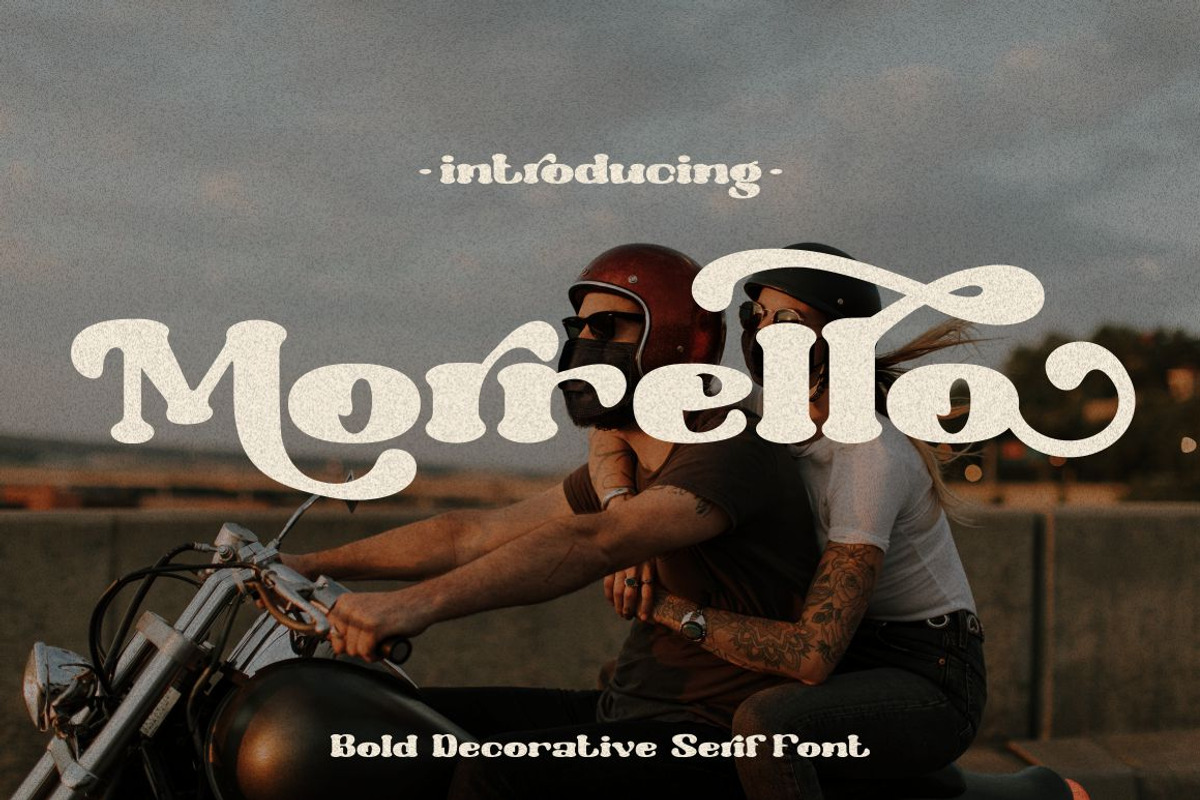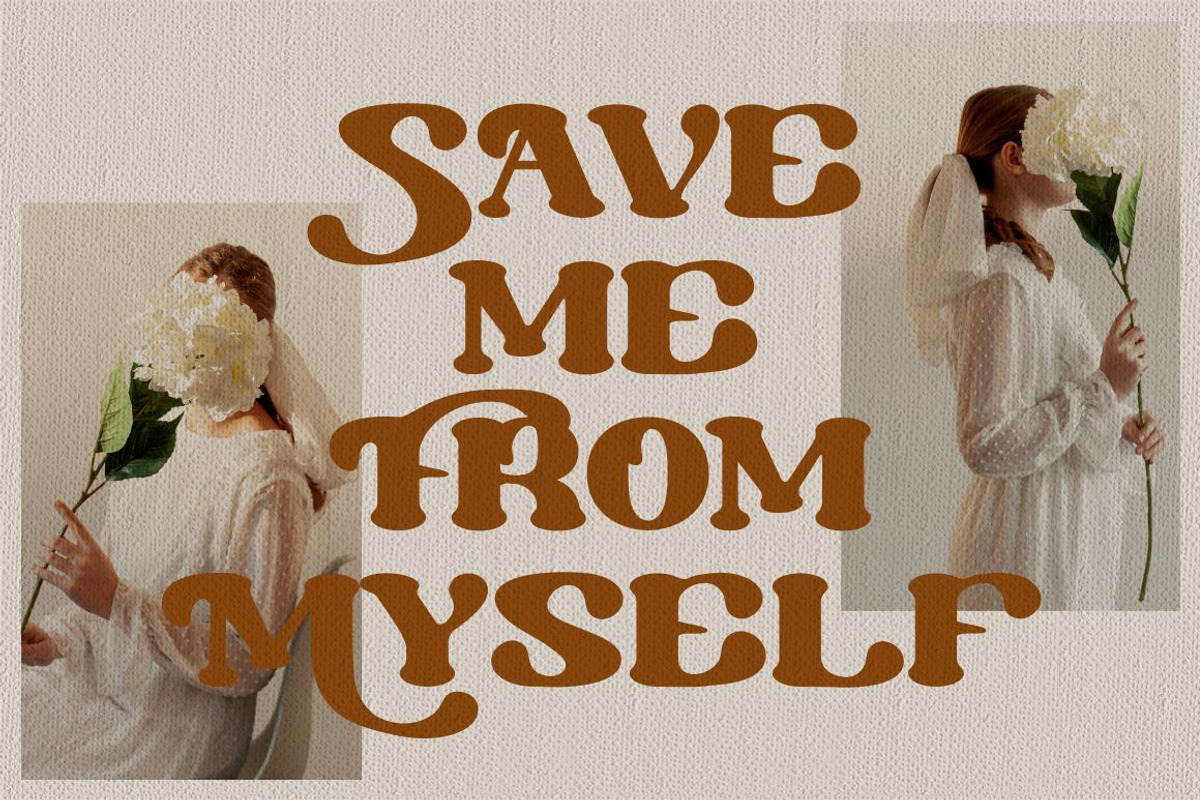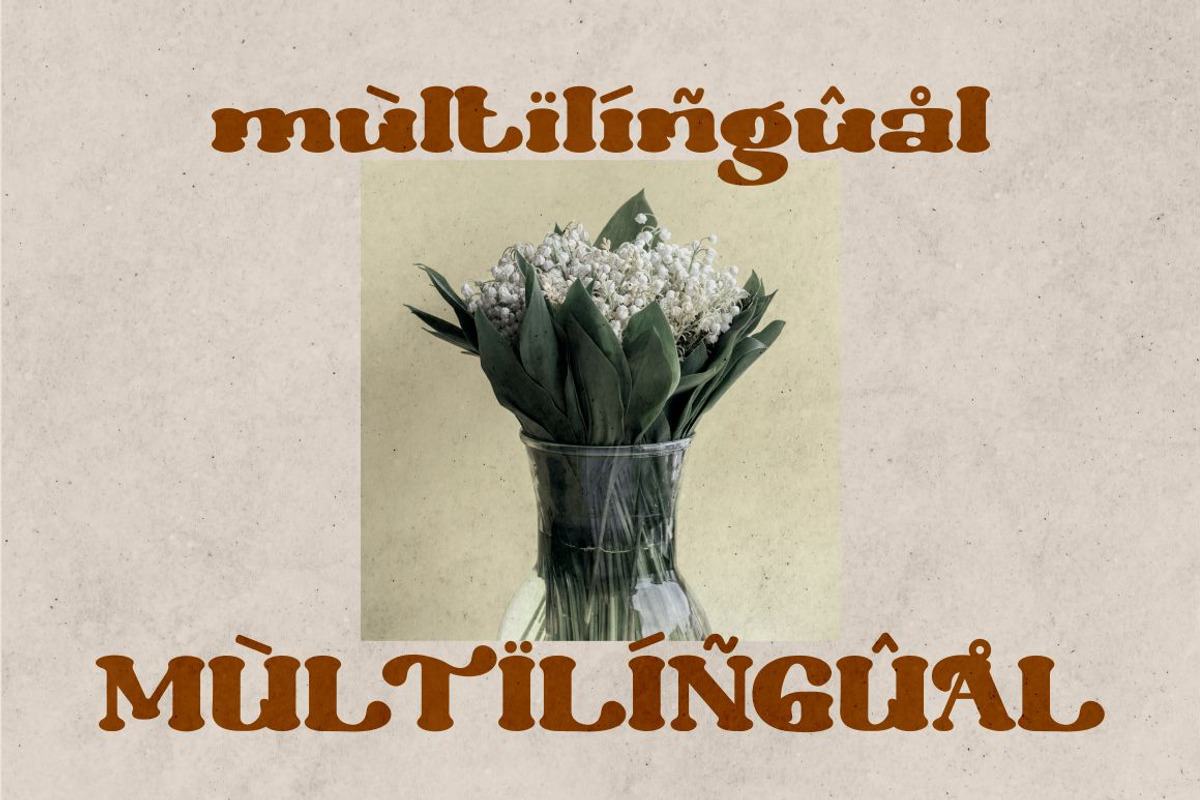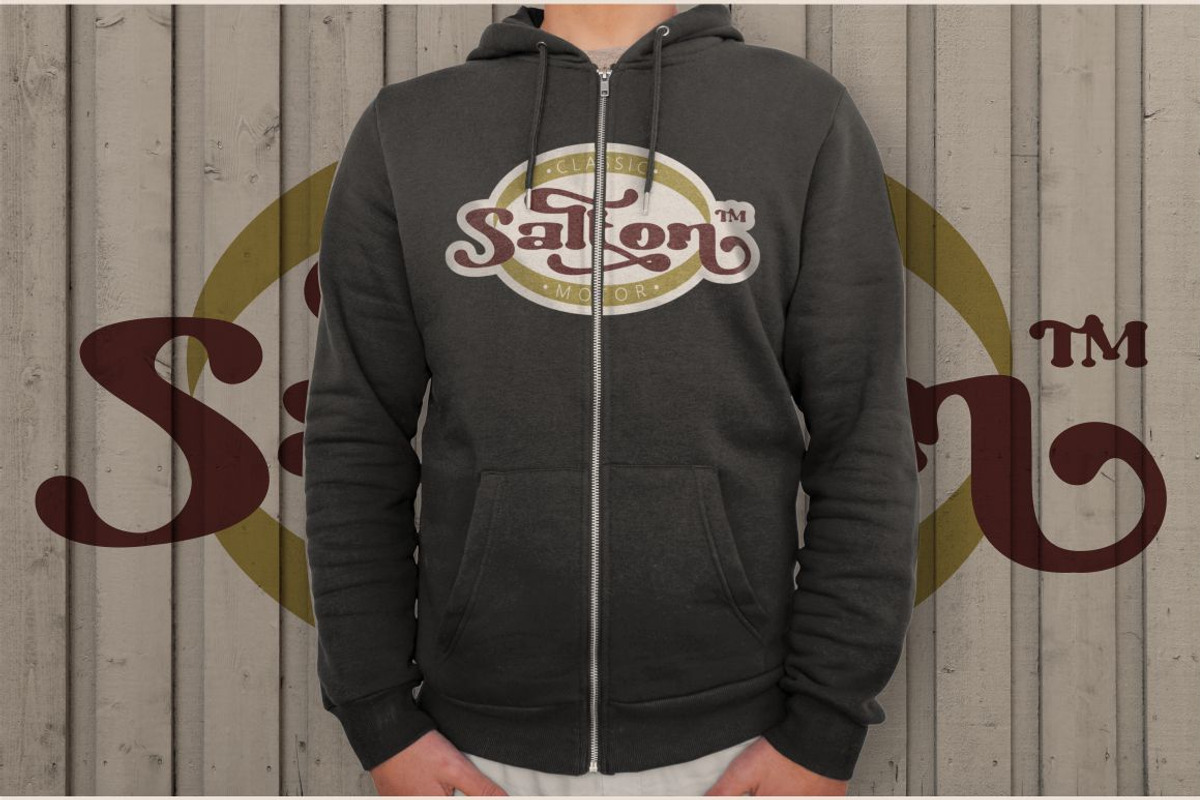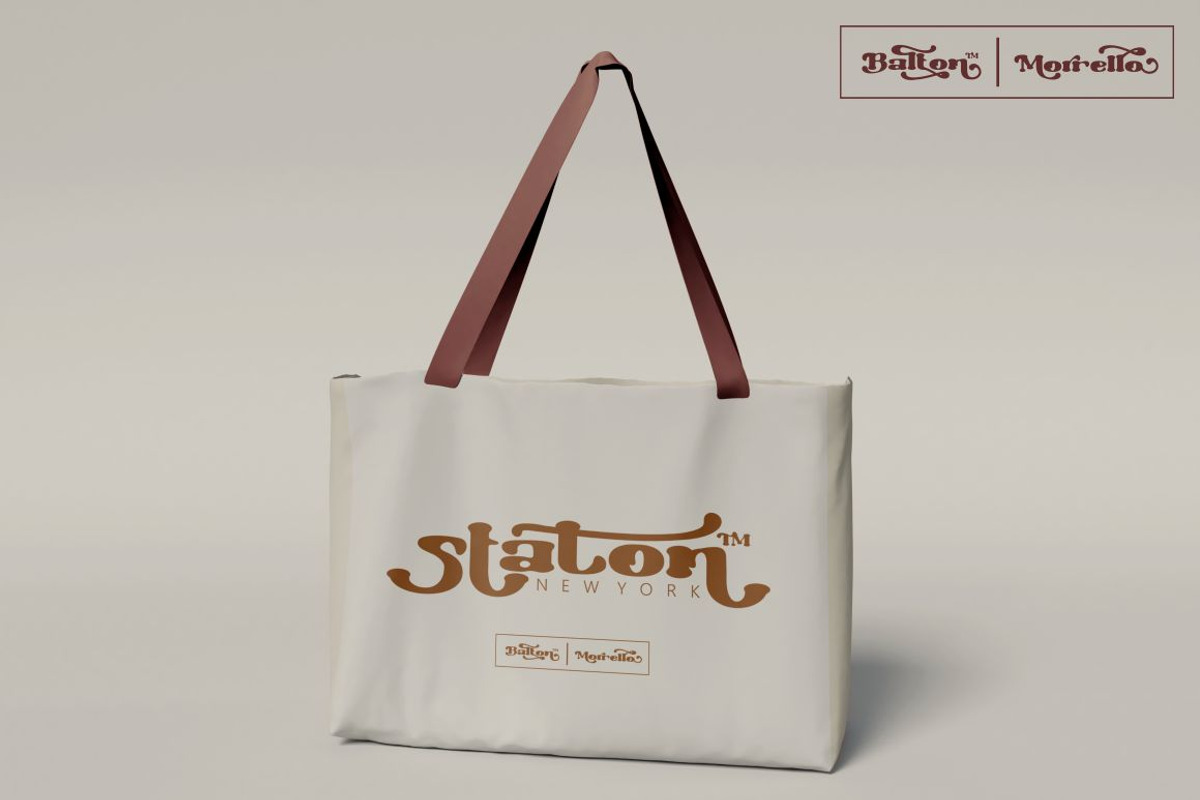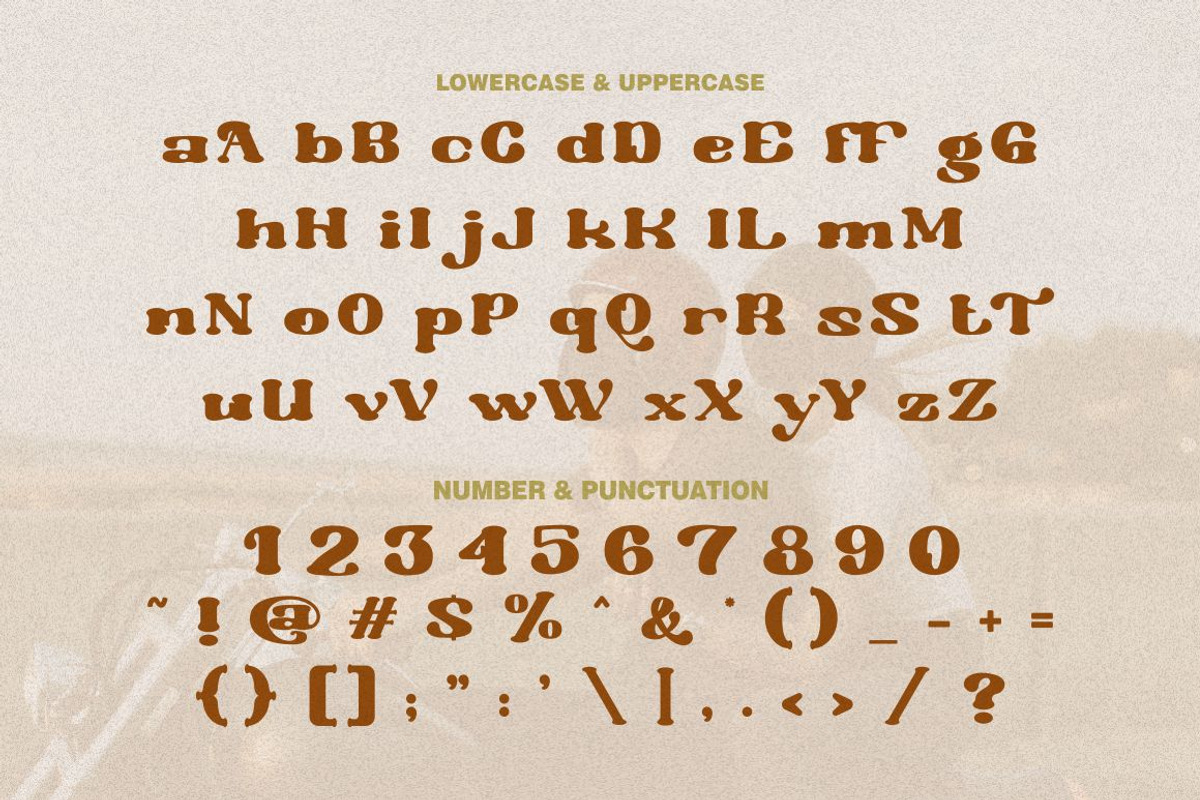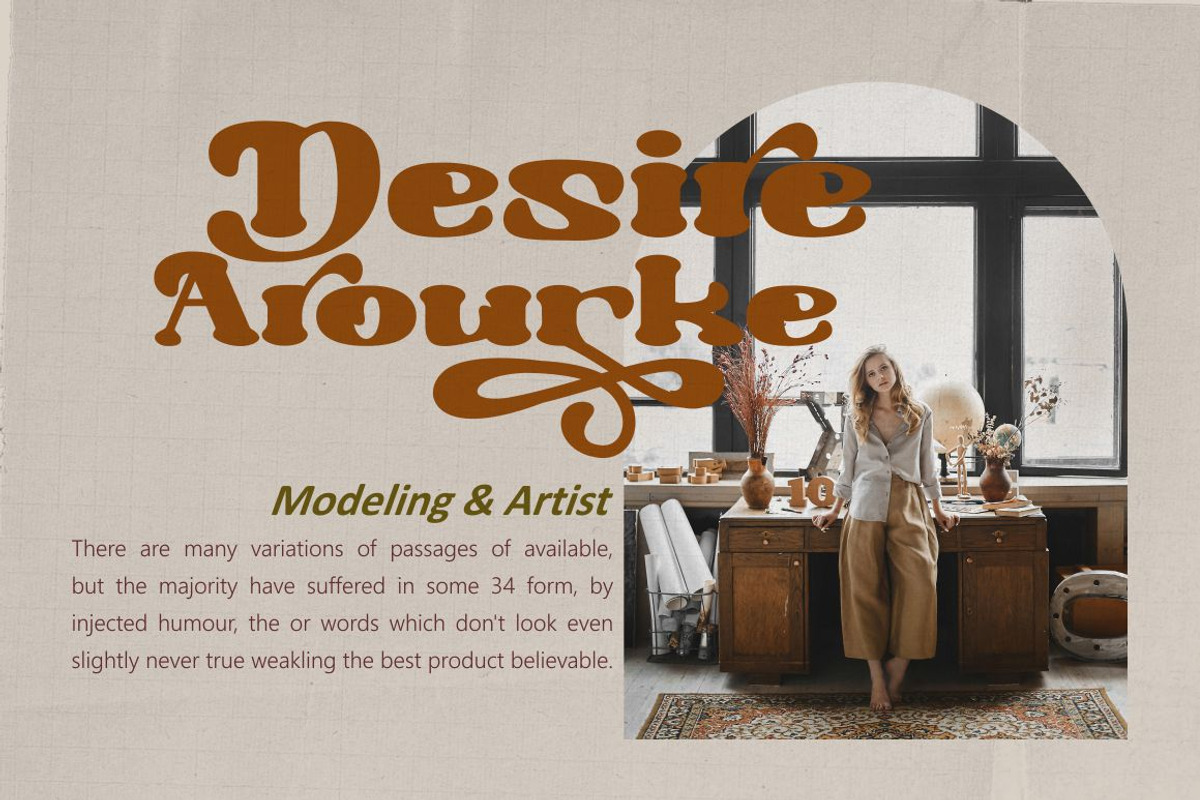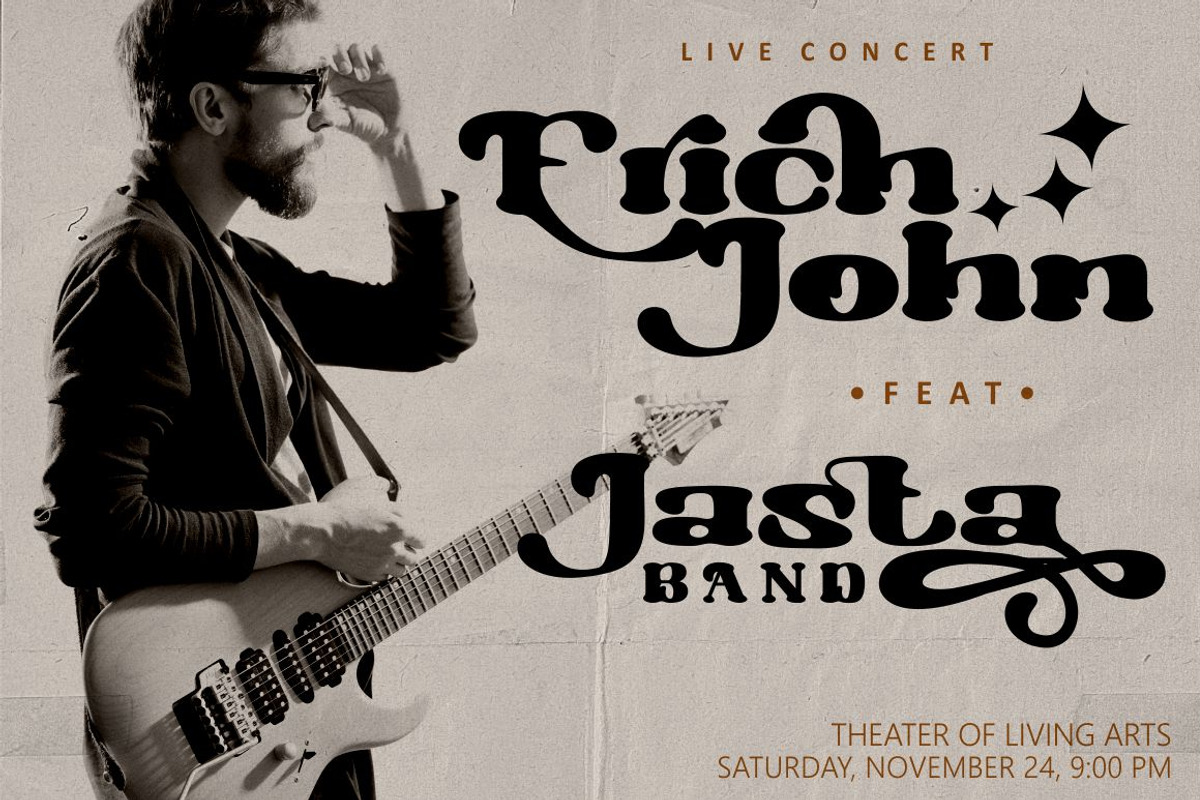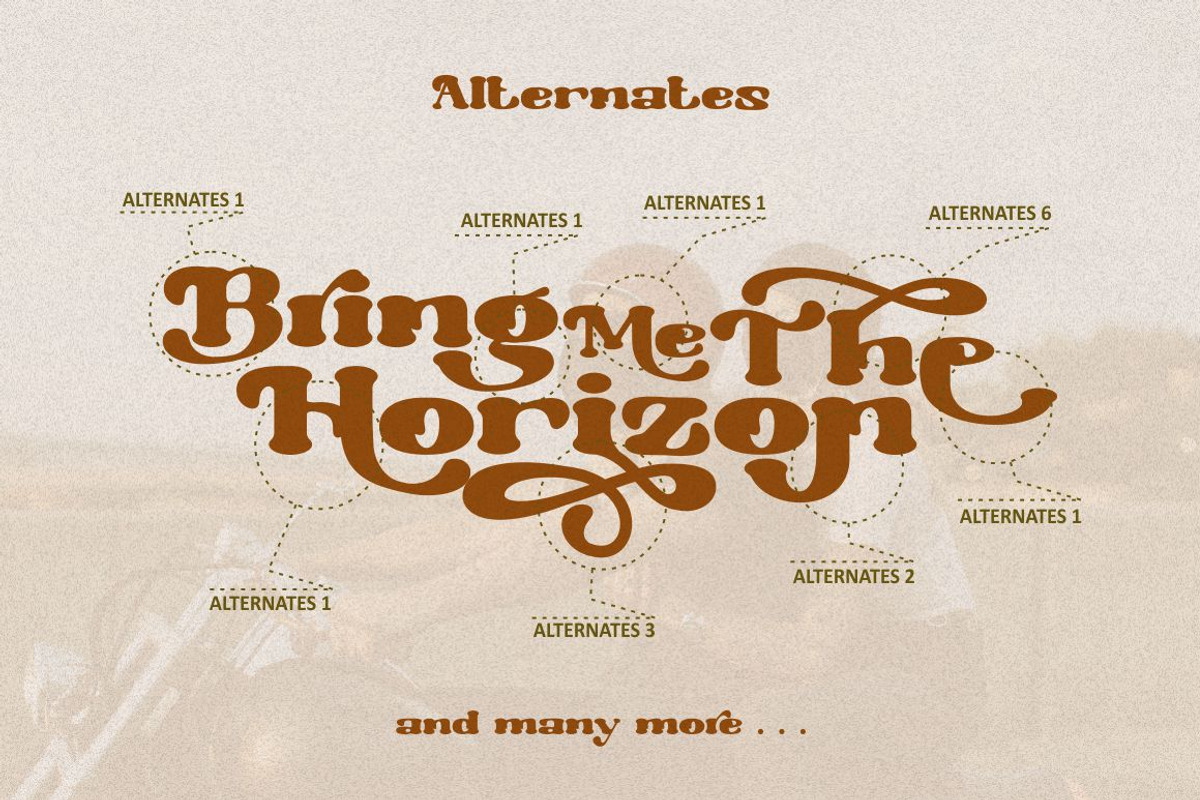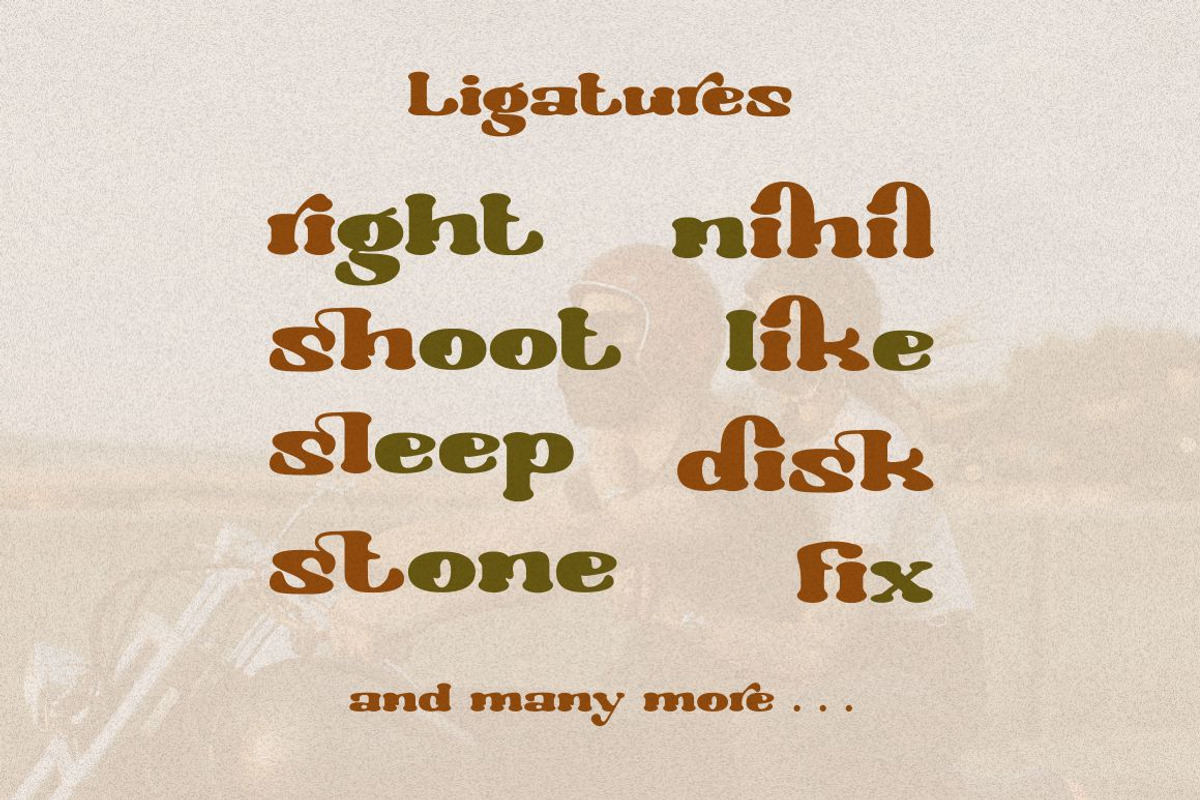
Morrello - Retro Decorative Serif
Morrello - Bold Retro Decorative Serif Font
Morrello is a bold retro decorative serif font with beautiful ligatures, tons of alternative glyphs and multilingual support. It's bold, groovy, clean and unique with vintage fell. Morrello is very versatile font that works great in large and small sizes. Helps to create layout design in 60s or 70s design projects. Come with open type feature with a lot of alternates, its help you to make great lettering. Morrello best uses for heading headlines, cover, poster, logos, quotes, product packaging, merchandise, social media & greeting cards and many more.
Comes with feature :
- Number, Punctuation And Symbols
- Multilanguage Support.